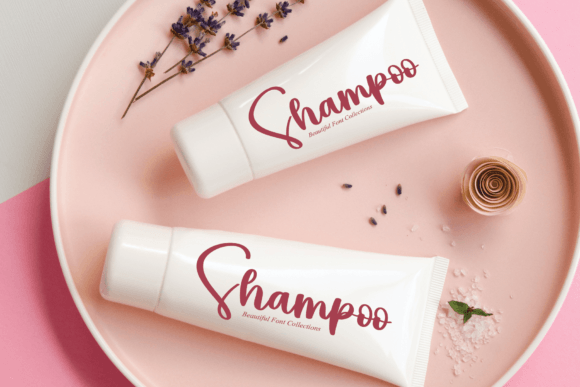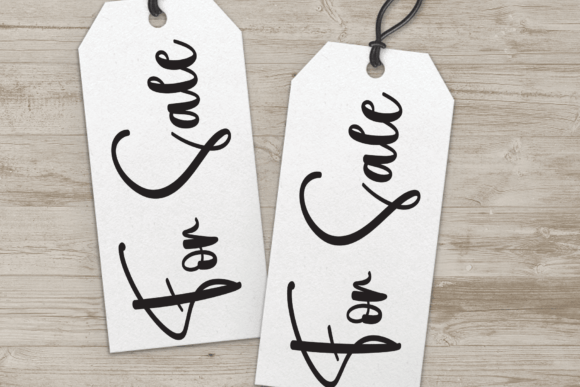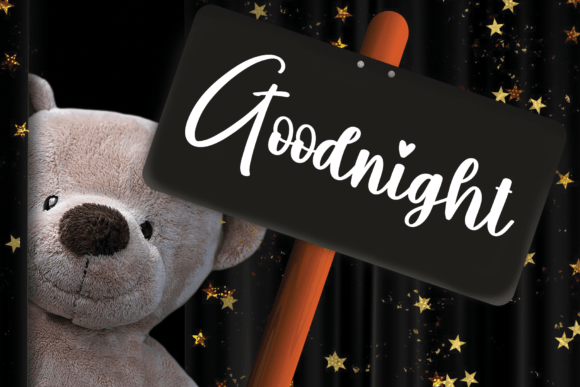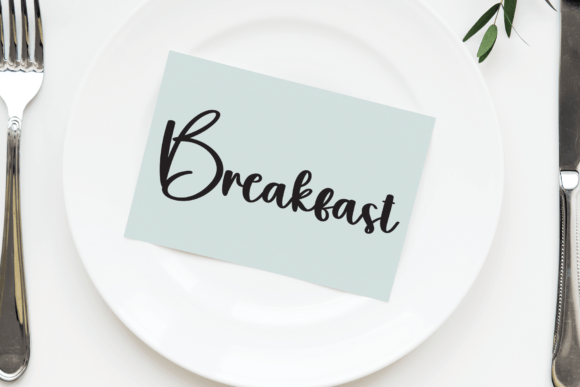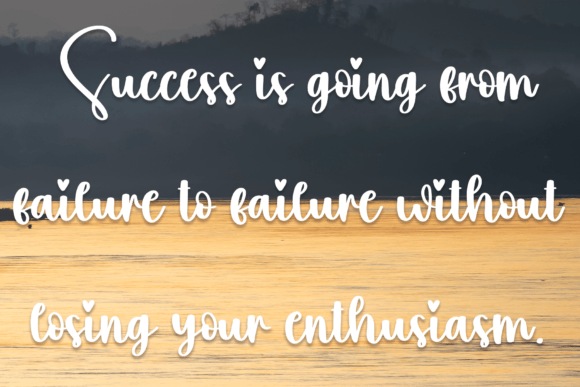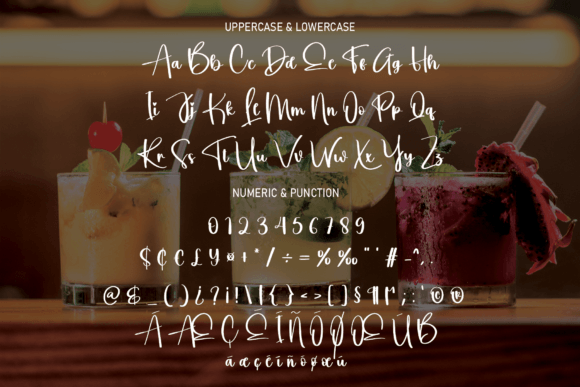
Introducing Drink Font: A Lovely and Sweet Handwritten Script Font
Are you looking for a font that can add a touch of joy and romance to your design projects? Look no further than Drink Font, a beautiful handwritten script font that is sure to delight. With its gentle and sweet appearance, Drink Font is perfect for a variety of design ideas, from wedding invitations and party decorations to branding and packaging.
What Makes Drink Font So Special?
Drink Font is a unique and charming font that is designed to bring a sense of happiness and love to your designs. Its handwritten script style gives it a personal and intimate feel, making it perfect for projects that require a touch of warmth and personality. The font’s gentle curves and flowing lines create a sense of movement and fluidity, making it a joy to use in a variety of design applications.
Features of Drink Font
- Handwritten script style: Drink Font features a beautiful handwritten script style that is perfect for adding a personal touch to your designs.
- Gentle and sweet appearance: The font’s gentle curves and sweet appearance make it perfect for projects that require a touch of romance and joy.
- Highly versatile: Drink Font can be used in a variety of design applications, from wedding invitations and party decorations to branding and packaging.
Design Ideas Using Drink Font
Drink Font is a versatile font that can be used in a variety of design applications. Here are a few ideas to get you started:
- Wedding invitations: Use Drink Font to create beautiful and romantic wedding invitations that will set the tone for the big day.
- Party decorations: Add a touch of joy and celebration to your party decorations with Drink Font.
- Branding and packaging: Use Drink Font to create unique and eye-catching branding and packaging for your business or product.
- Stationery and cards: Use Drink Font to create beautiful and personalized stationery and cards for any occasion.
Tips for Using Drink Font
Here are a few tips for using Drink Font in your designs:
- Use it with contrasting fonts: Pair Drink Font with contrasting fonts to create visual interest and add depth to your designs.
- Experiment with colors: Try out different colors and color combinations to find the perfect look for your design.
- Don’t be afraid to get creative: Drink Font is a versatile font that can be used in a variety of creative ways, so don’t be afraid to experiment and try new things.
Drink Font is a beautiful and versatile handwritten script font that is perfect for adding a touch of joy and romance to your design projects. With its gentle and sweet appearance, Drink Font is sure to delight designers and crafters alike. Whether you’re creating wedding invitations, party decorations, or branding and packaging, Drink Font is the perfect choice.